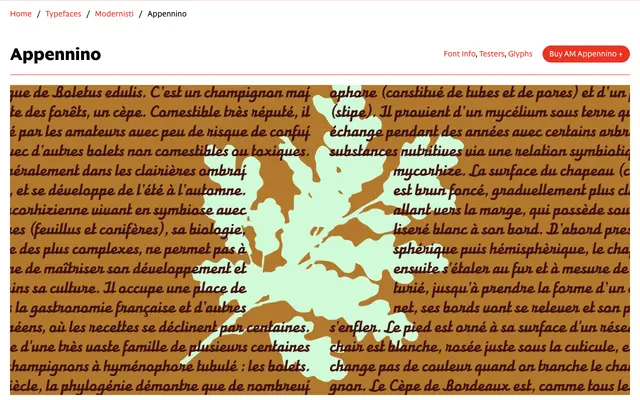
AM Appennino
CAST · Valentina Casali, Marco Goran Romano · 2025
A digital revival of a 1938 Italian wood type by Xilografia di Verona, reconstructed by Valentina Casali and Marco Goran Romano with refined spacing and redrawn problem letters.
Originally released as a wood type around 1938, the face blends geometric and vernacular forms, using straight diagonal upper strokes on letters such as M, N, m and n in place of the more typical curved entry strokes. Casali and Romano addressed the rough inconsistencies of the source material — uneven contrast, awkward diagonal cuts, uniform joining strokes — redesigning several letters entirely for the digital environment. OpenType features include initial and final forms and an all-caps stylistic set for uppercase-only settings.
A bold, low-contrast, fully cursive script with all letters joined, revived from a 1938 Italian wood type; its combination of round strokes, straight diagonals and sharp corners places it firmly in the connected script category.